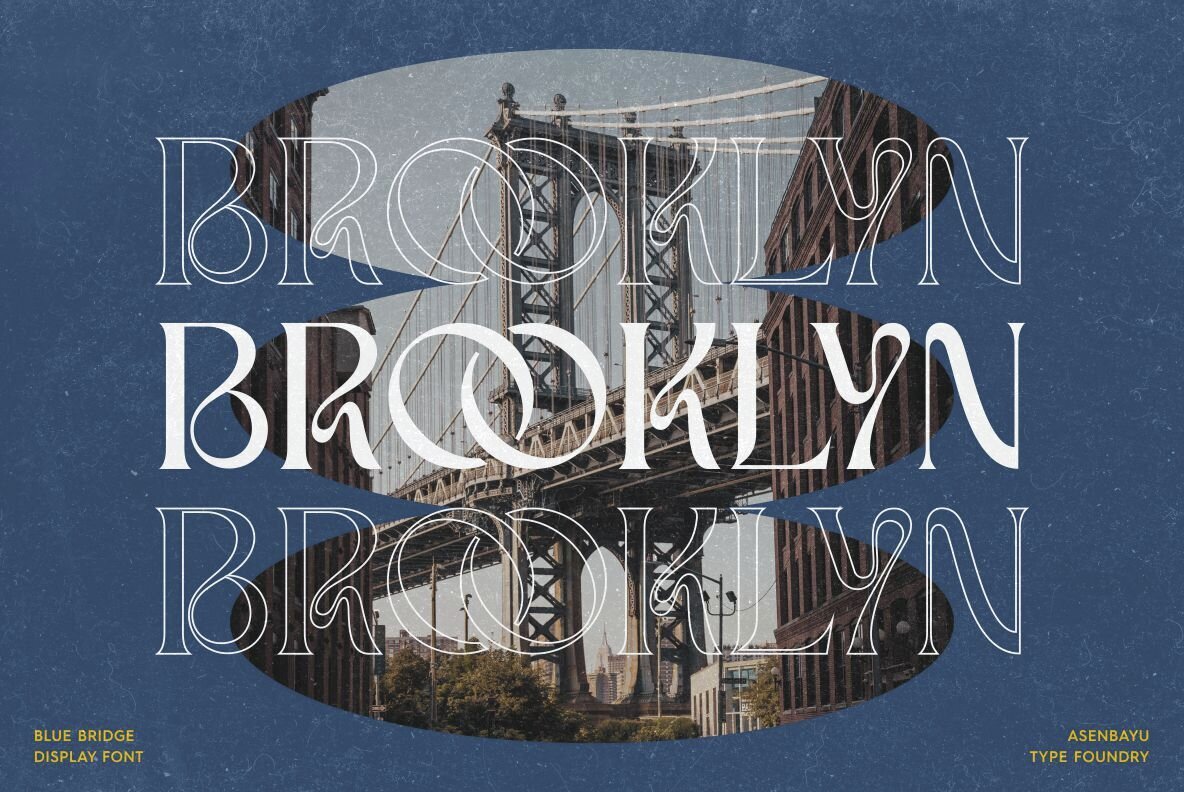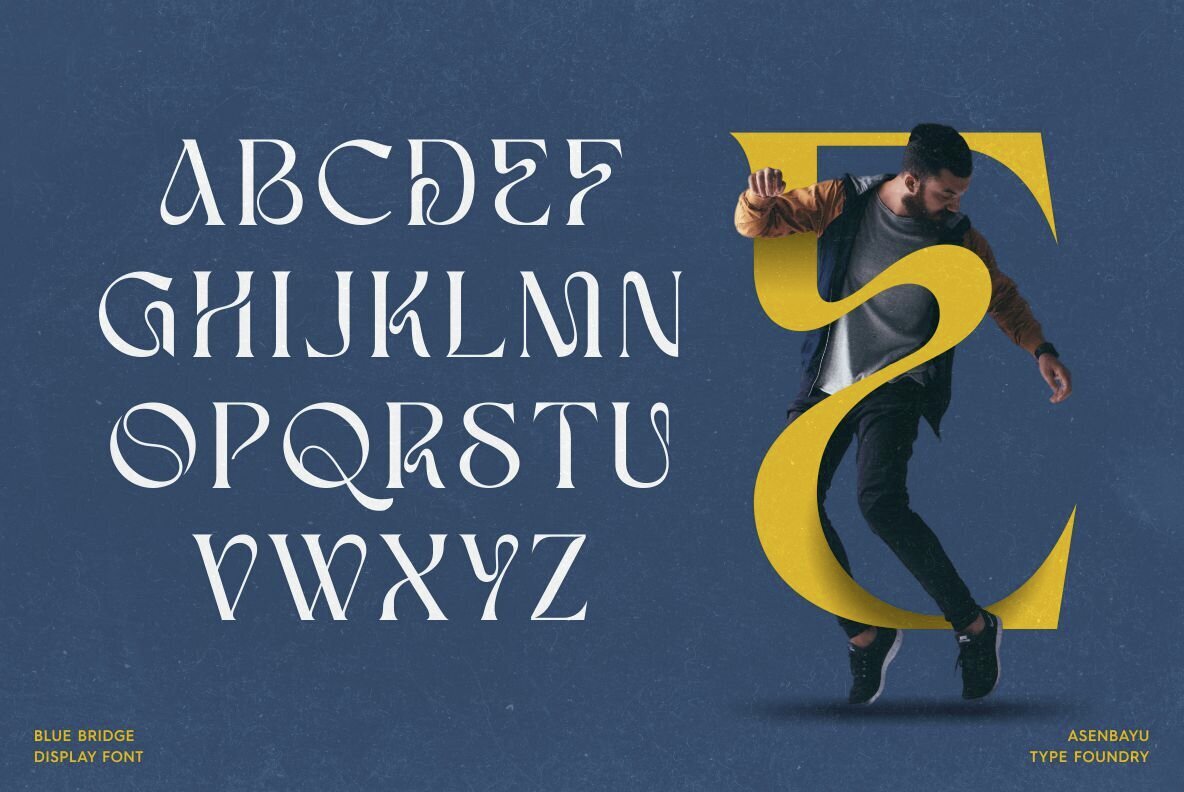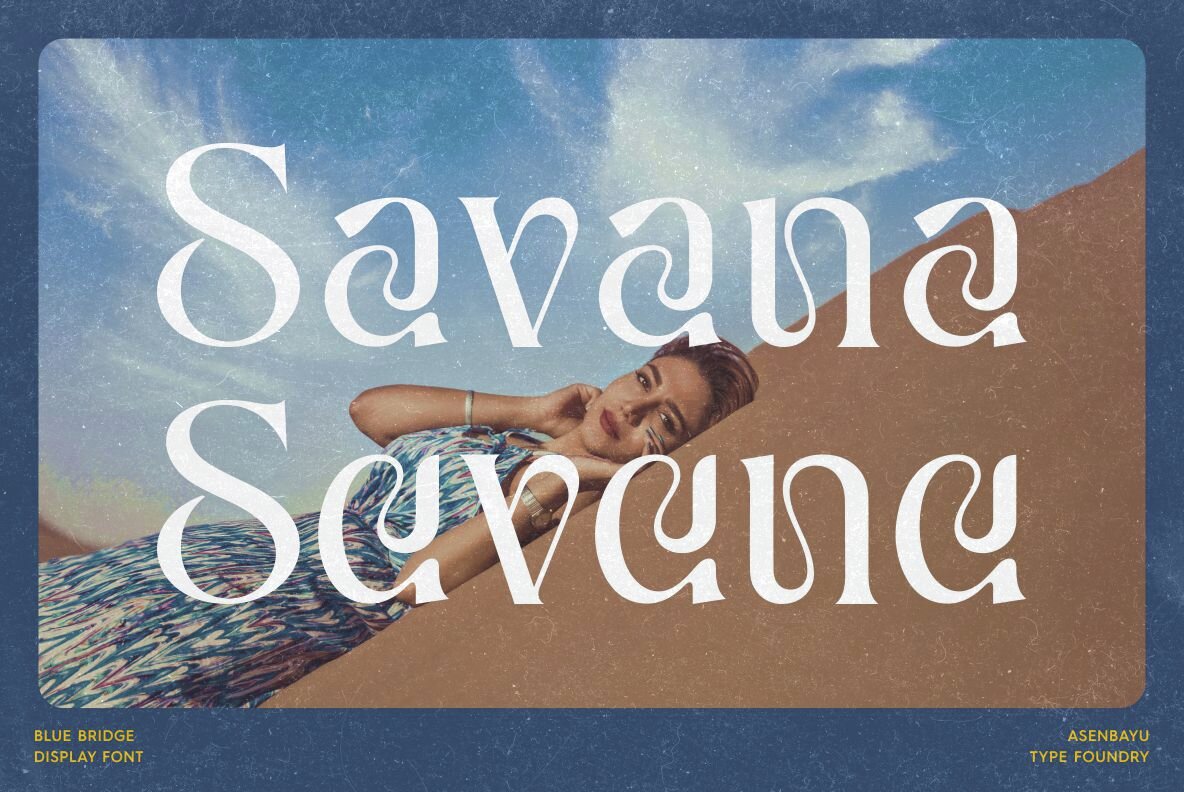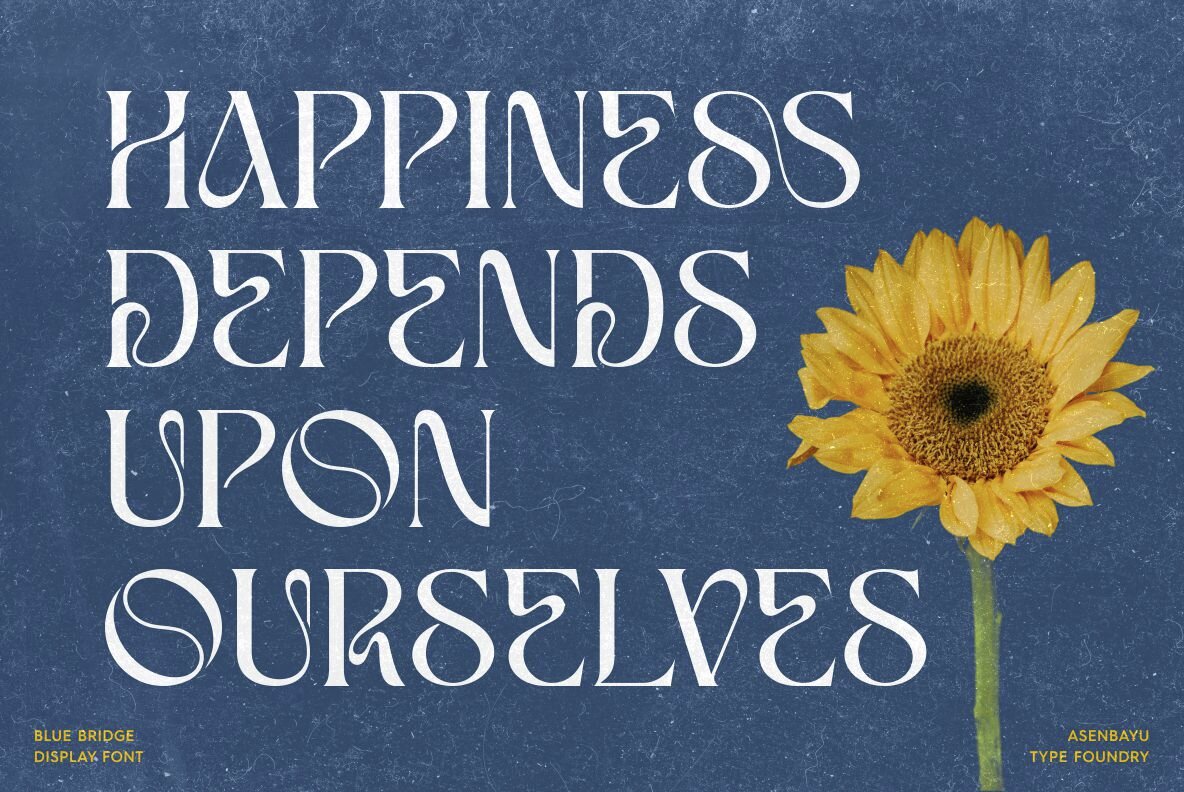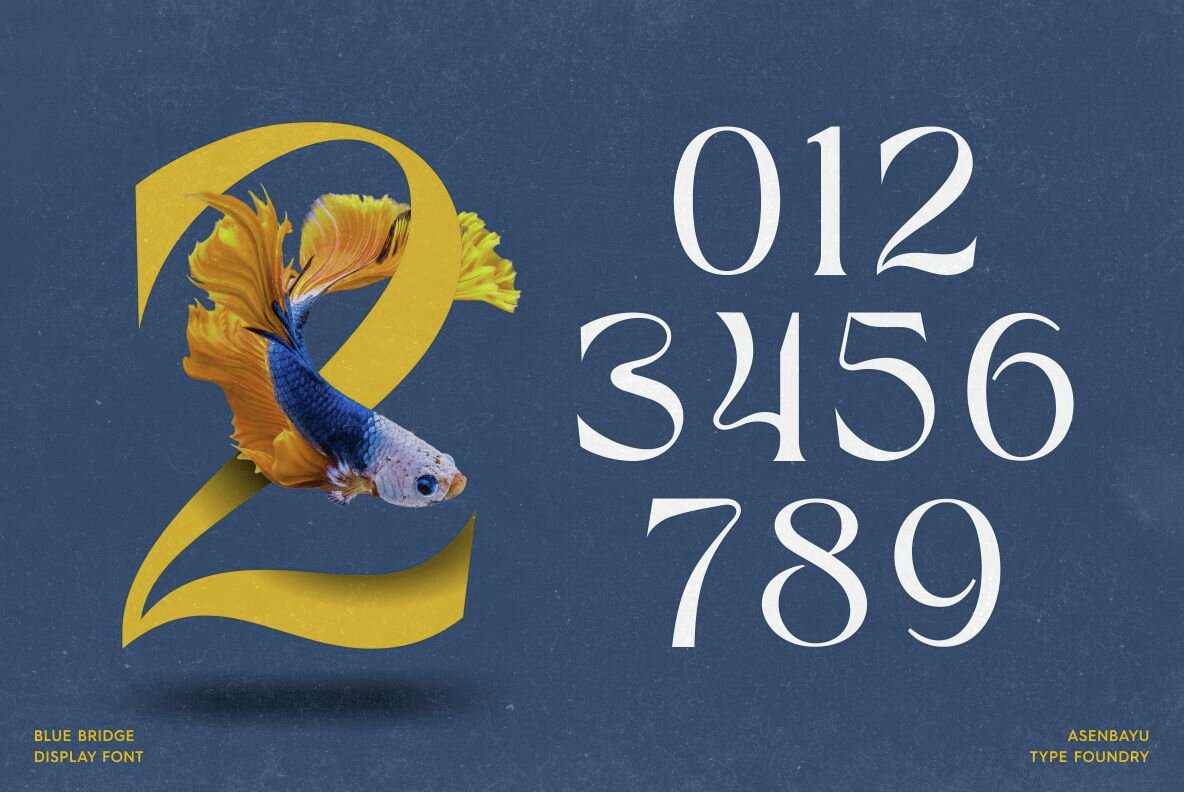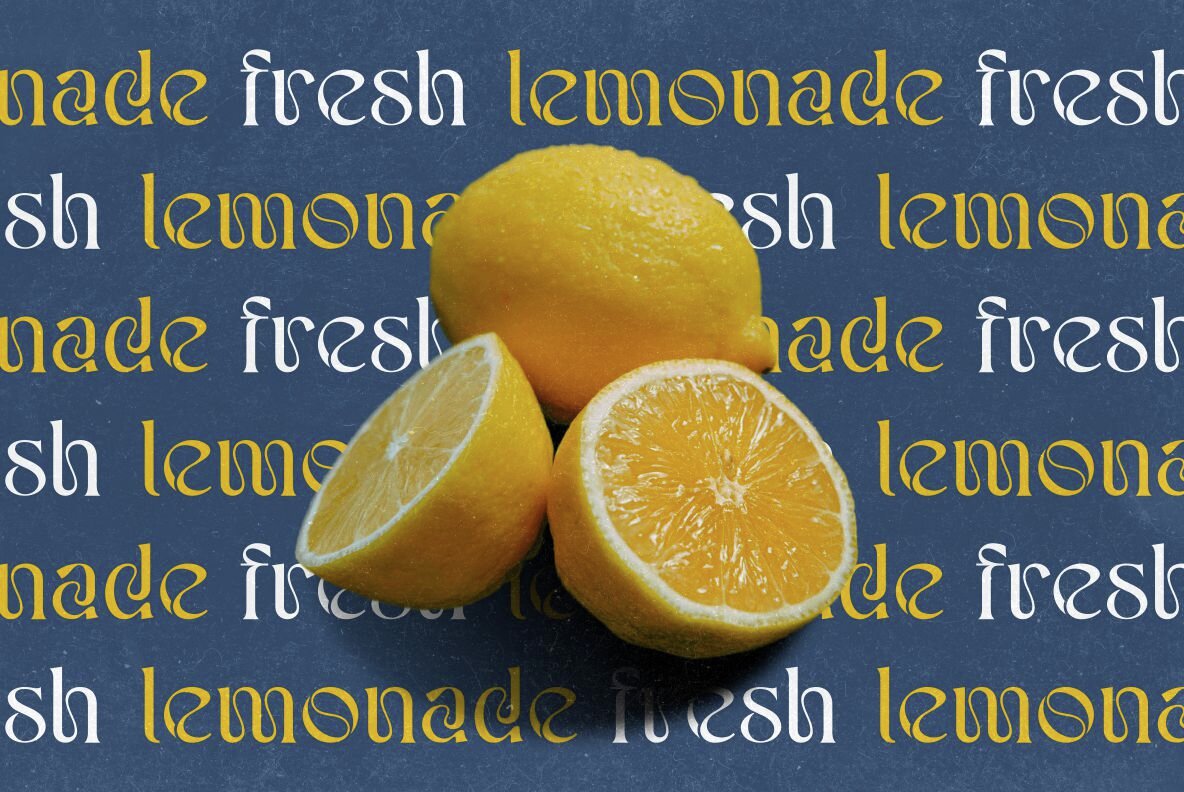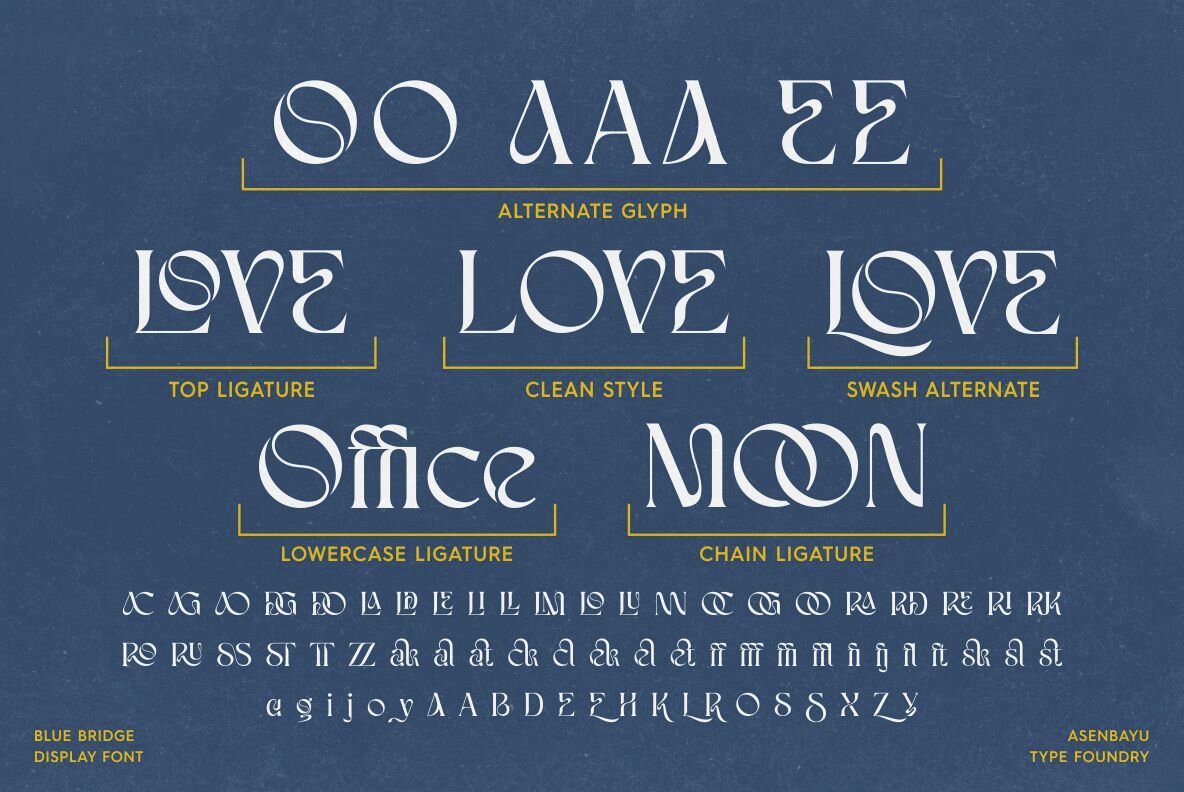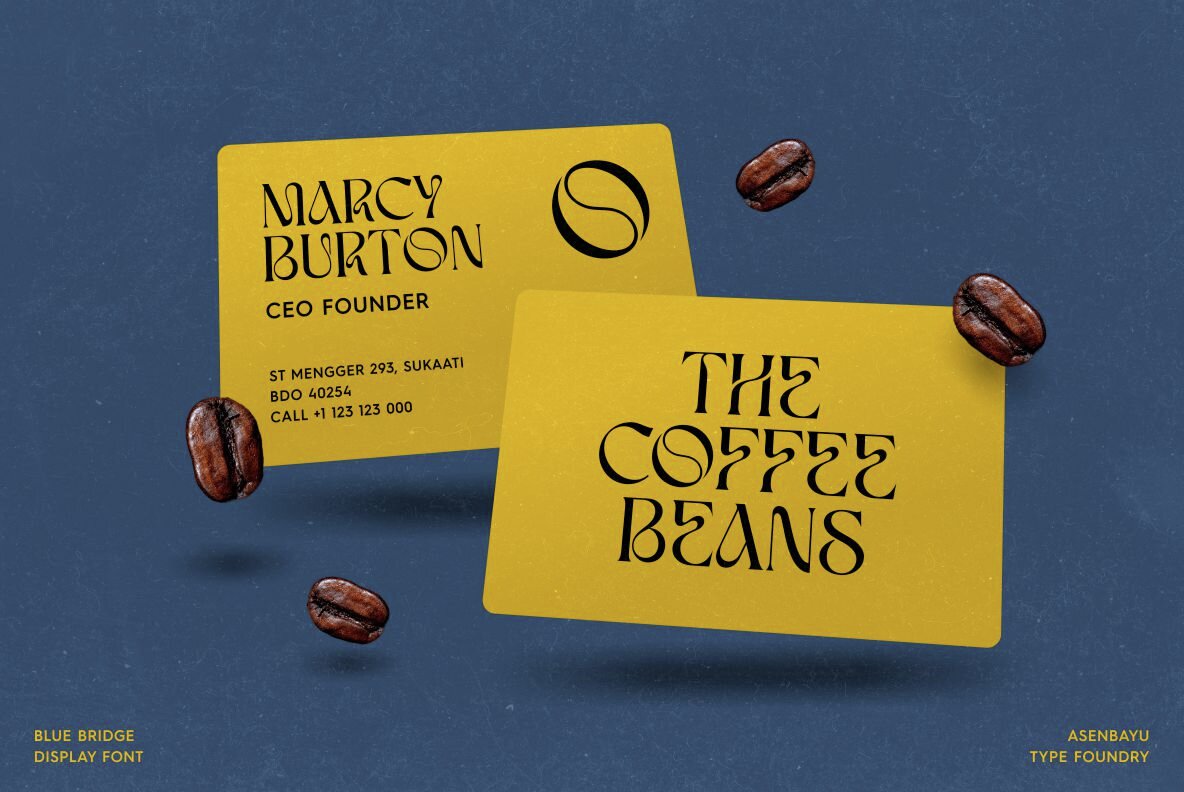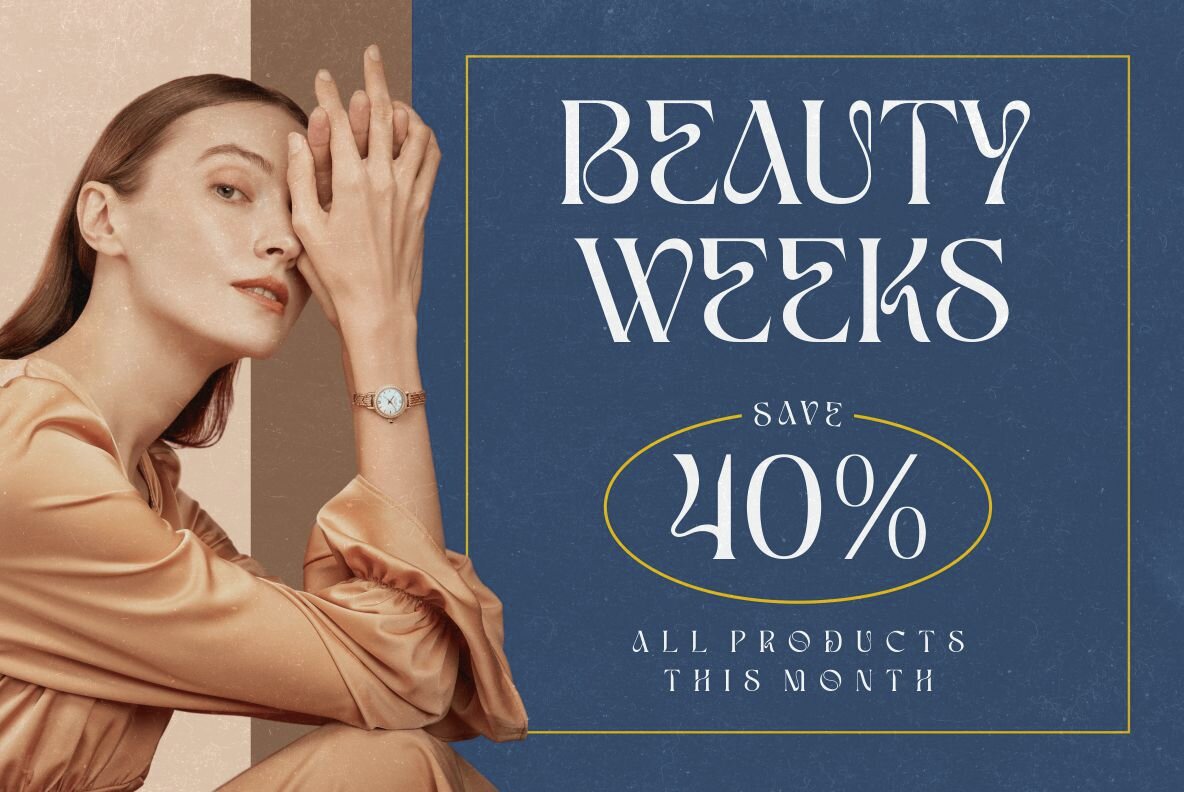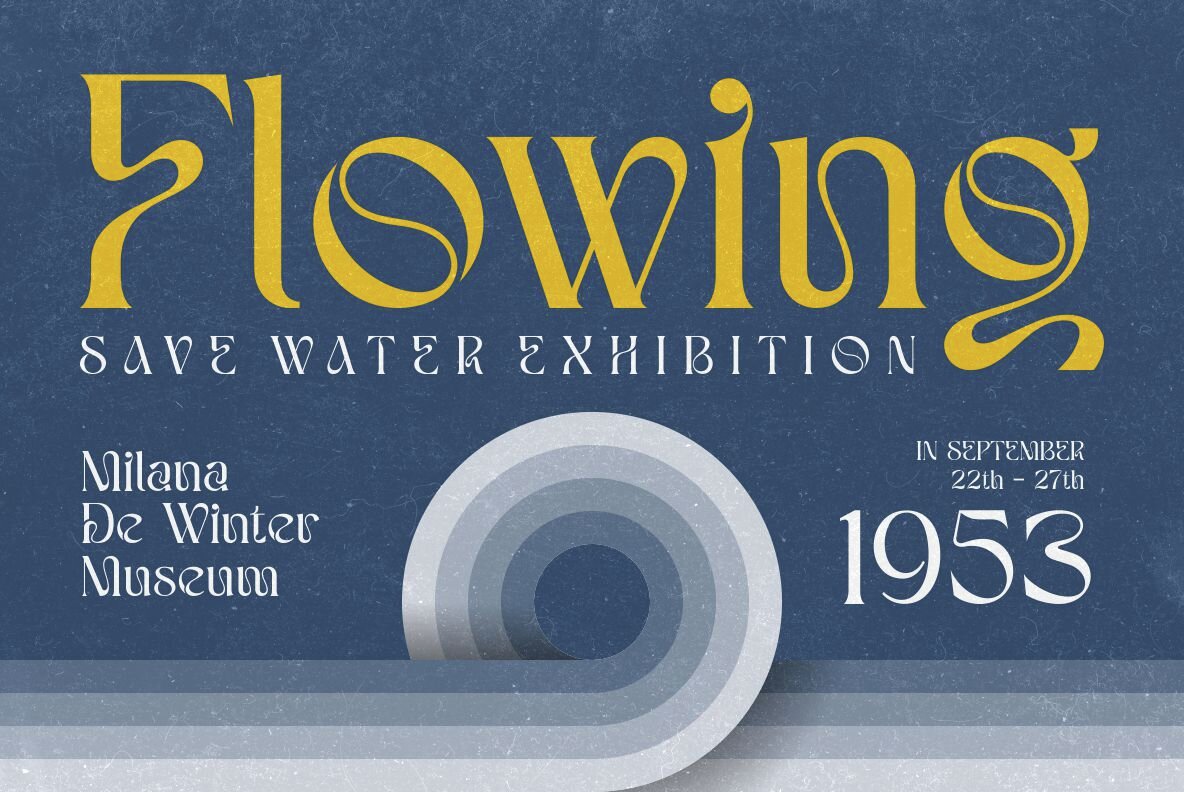
Blue Bridge Font
Blue Bridge
Blue Bridge is a creatively designed decorative serif display font. This experimental font uniquely combines the elegant characteristics of sharp serifs with decorative flowing shapes. The amalgamation of sharp serif elements and beautifully curved lines offers a fresh experience, making it suitable for both modern and vintage designs. Ideal for eye-catching packaging labels, distinctive logos, trendy posters, fashion applications, and more.Blue Bridge: Sharp Serif Display Font with Decorative Flair